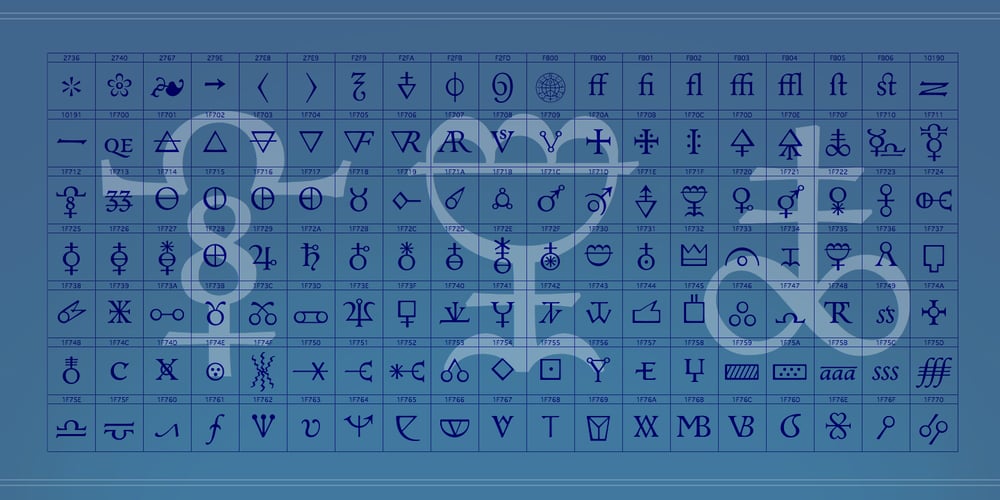
Andron 1 Alchemical Font Family was designed by Andreas Stötzner and published by SIAS. Andron 1 Alchemical contains 1 styles and family package options. Andron 1 Alchemical offers about 170 alchemical and astrological characters in a sophisticated and mature typographical style. It contains all relevant Zodiac, constellation and planet symbols of the 26xx Unicode block as well as the complete new 1F700-block of special alchemical characters. – All glyphs are drawn in the classical Andron style and blend perfectly with all other Andron fonts. – This font is a valuable addition to your Andron library.